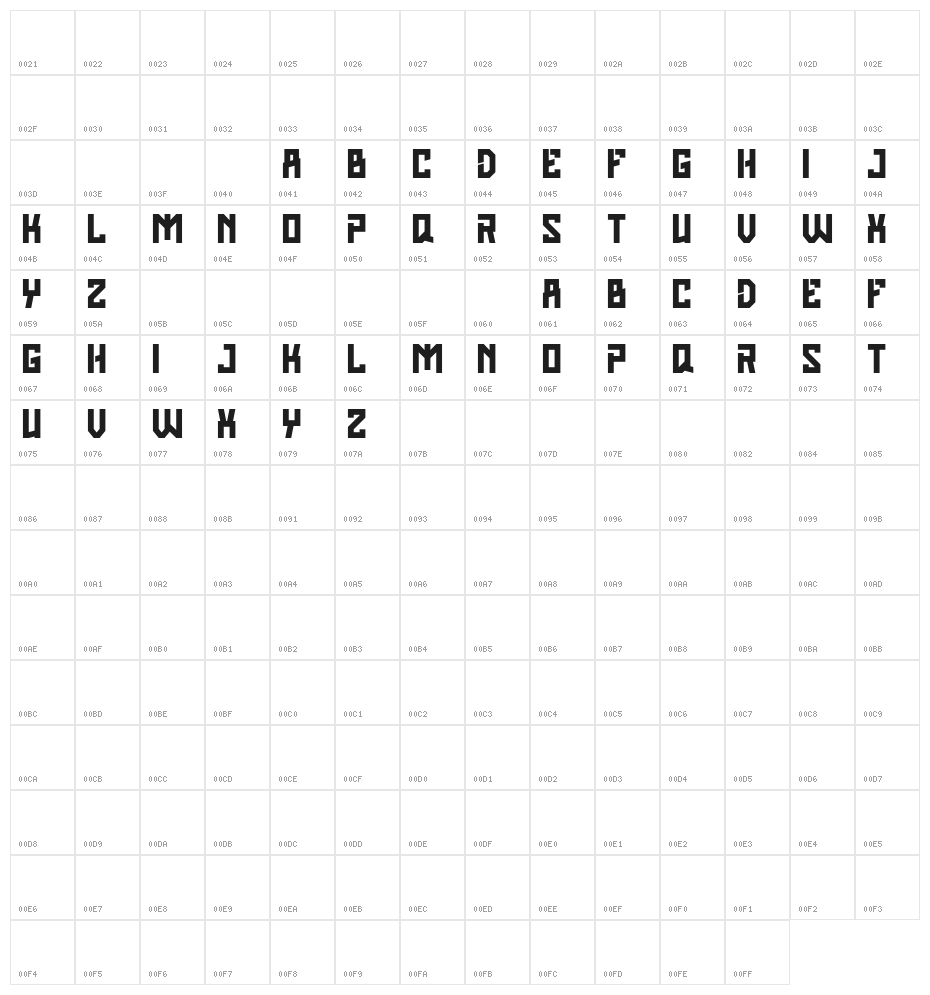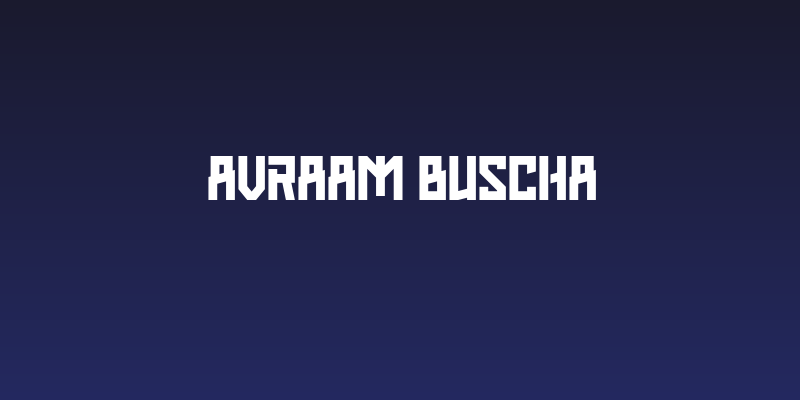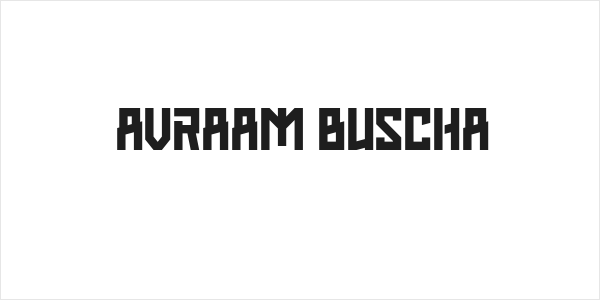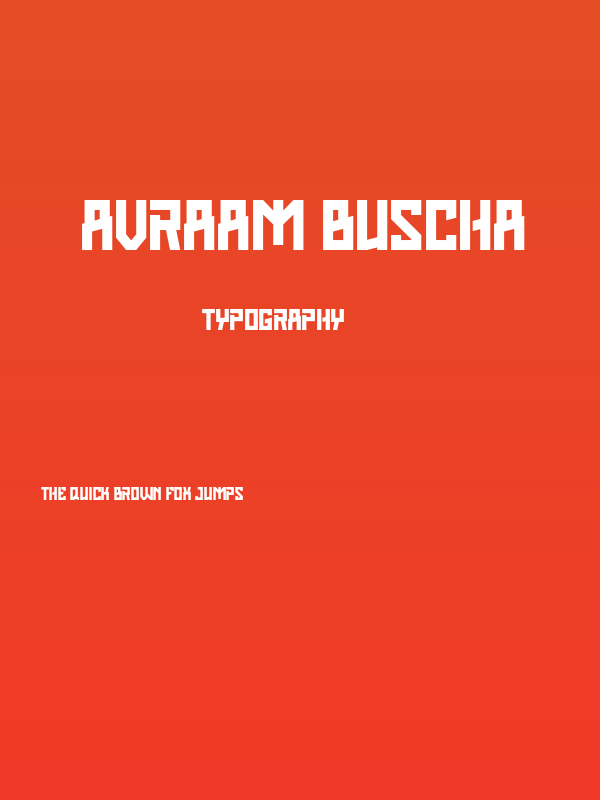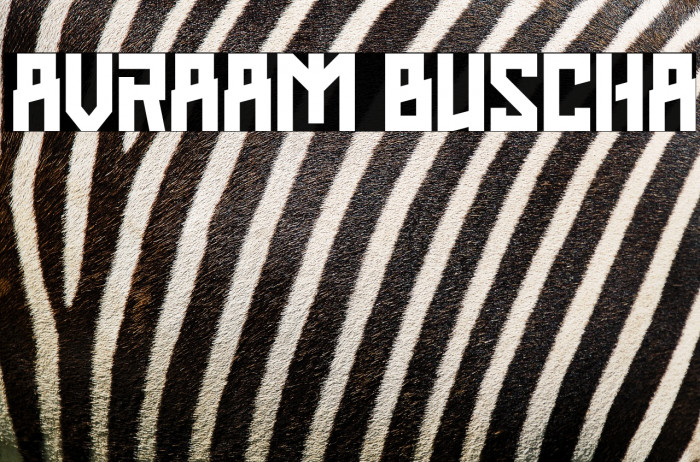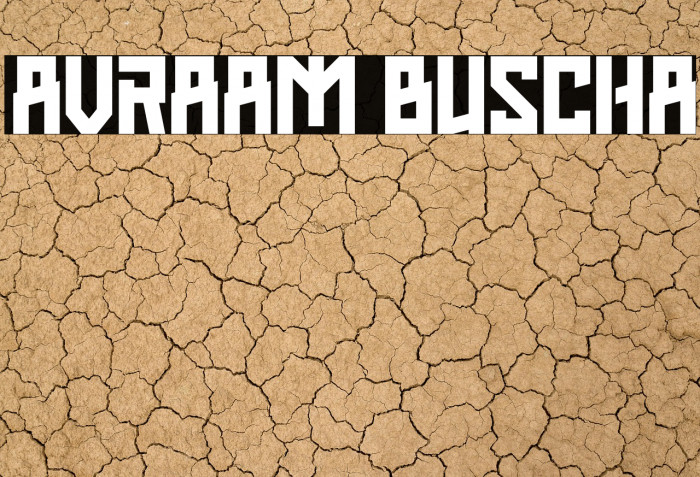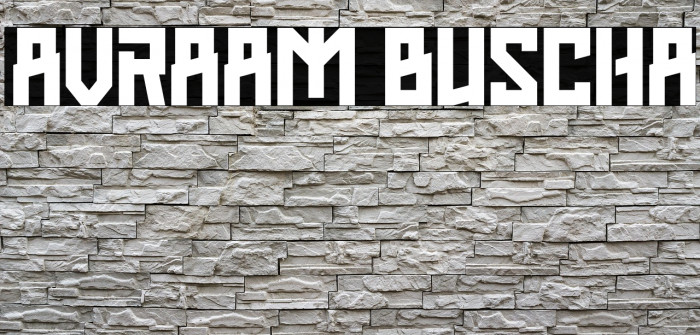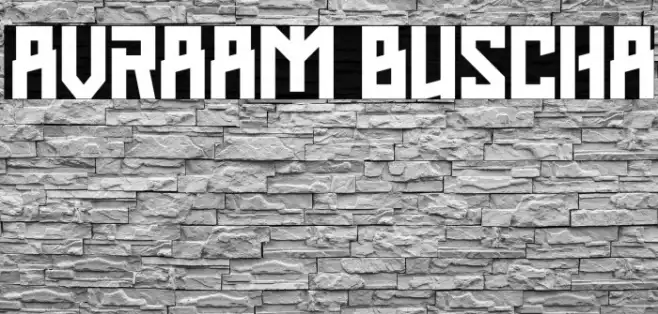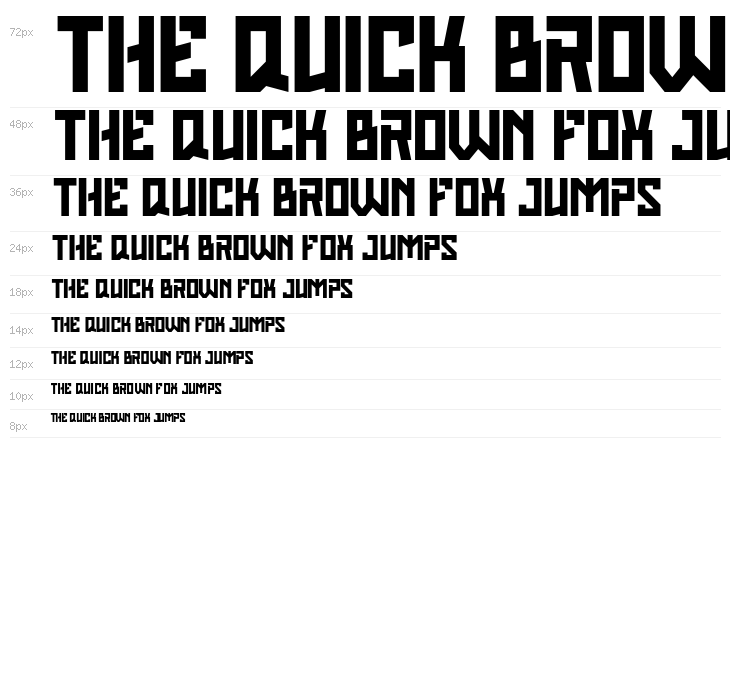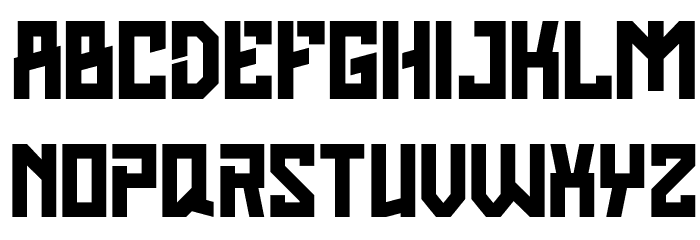
AVRAAM BUSCHA Font
AVRAAM BUSCHA Description
This font features a bold, geometric design with sharp angles and a strong presence. The characters are constructed with thick, uniform strokes, giving them a robust and impactful appearance. The angular shapes and straight lines create a sense of modernity and strength, making it suitable for attention-grabbing headlines and titles. The uppercase letters are particularly striking, with each character maintaining a consistent height and width, contributing to a cohesive and structured look. The font's design is reminiscent of industrial or futuristic themes, making it ideal for projects that require a bold and assertive typeface.
| Proposed Projects | Ideal for branding, posters, headlines, and any design requiring a bold, impactful typeface. |